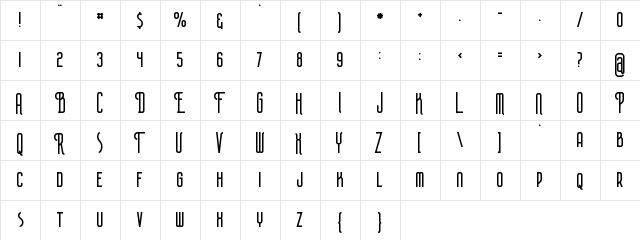
plasma Regular
| Foundry | cruzine |
| Designer | cruzine |
Design Context for plasma Typeface
plasma is a composed and adaptable typeface that performs quietly and consistently across a wide range of design contexts.